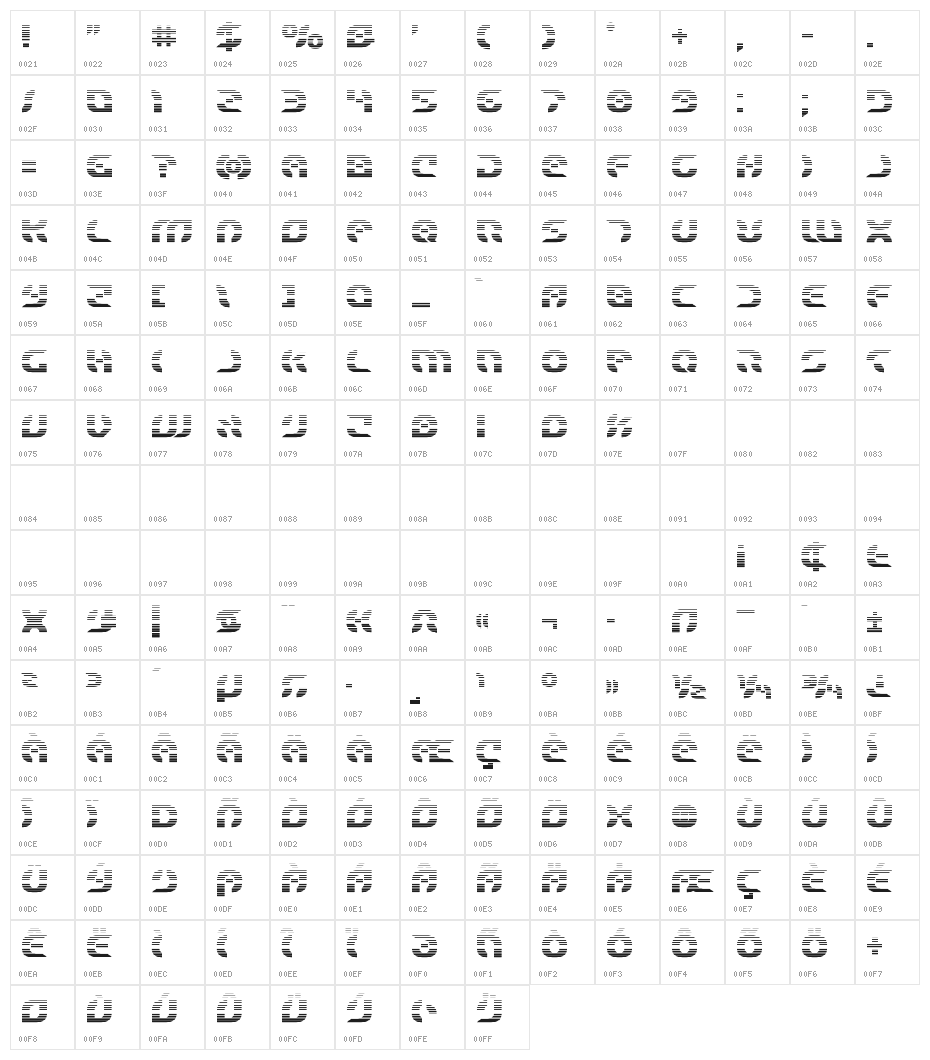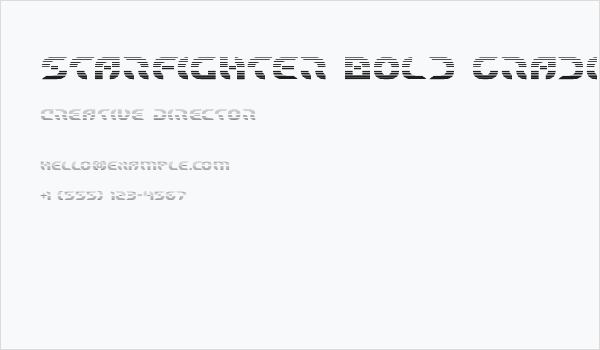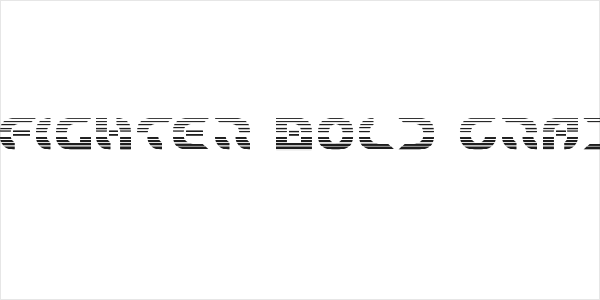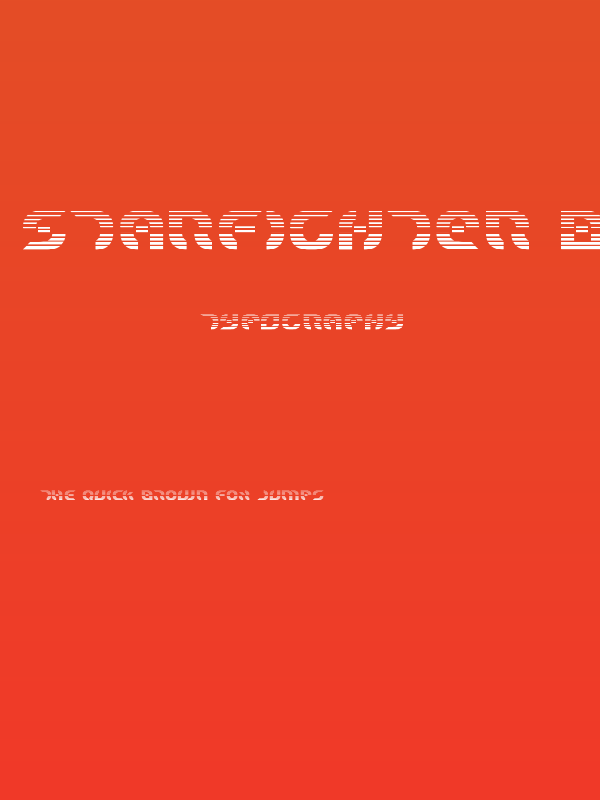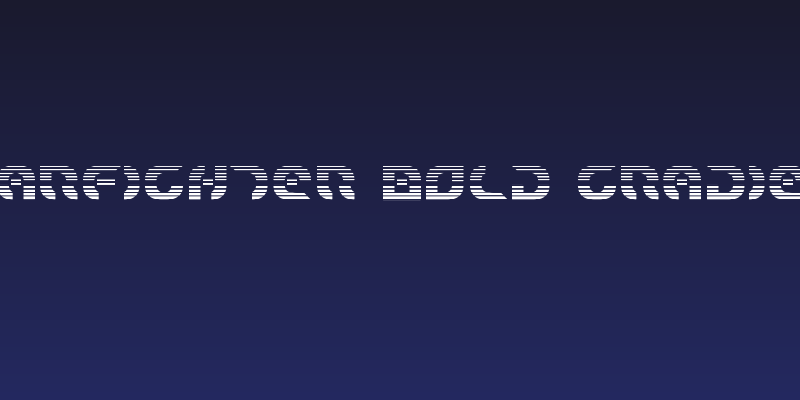
Starfighter Bold Gradient Font
Starfighter Bold Gradient Description
This font features a futuristic and bold design, characterized by its unique gradient effect created through horizontal lines. The letters are constructed with a series of parallel lines that give a sense of motion and modernity. The style is reminiscent of digital or sci-fi themes, making it ideal for projects that require a cutting-edge and dynamic appearance. The uppercase and lowercase letters maintain a consistent style, with numbers and special characters following the same design principles. The overall look is both striking and innovative, suitable for attention-grabbing headlines or logos.
| Proposed Projects | Ideal for sci-fi themed designs, video game titles, technology branding, and futuristic posters. |